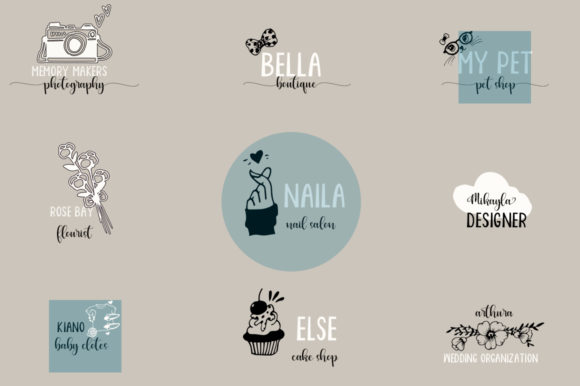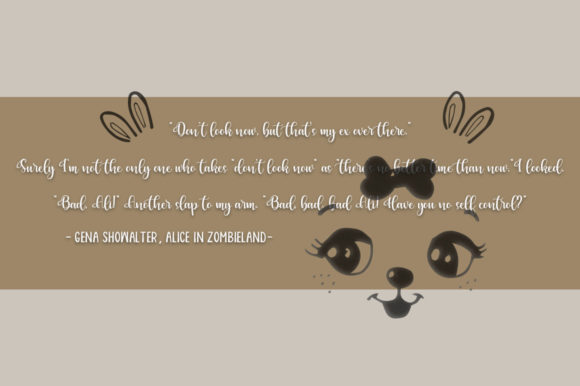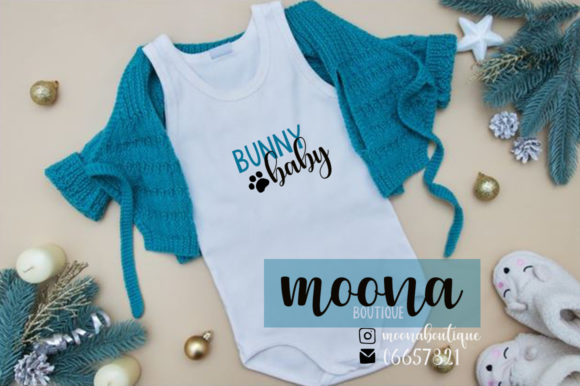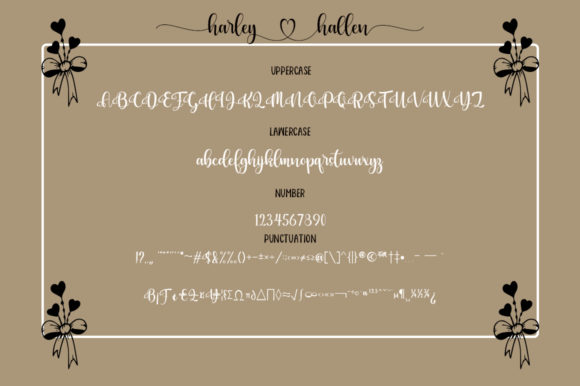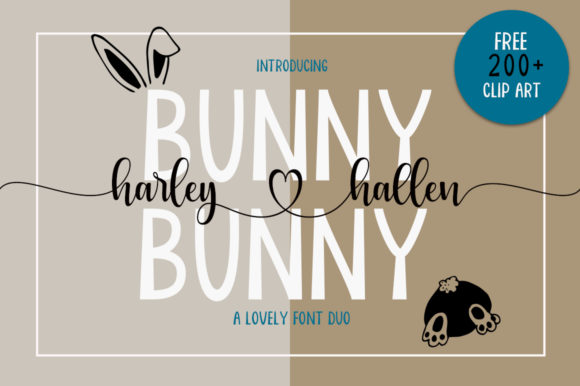
Bunny Harleyhellen Font: The Ultimate Duo for Stunning Designs
Are you a designer or crafter looking for a font that can elevate your designs to the next level? Look no further than the Bunny Harleyhellen Font, a lovely and delicate duo font that combines a sans serif and script style. This font is a masterpiece, with distinct and refined letters that will make your designs stand out.
The Versatility of Bunny Harleyhellen Font
One of the best things about the Bunny Harleyhellen Font is its incredibly versatile style. Whether you’re creating wedding invitations, thank you cards, quotes, greeting cards, logos, or business cards, this font will look stunning. Its adaptable and readable style makes it perfect for a wide range of designs, and its handwritten touch adds a personal and unique flair.
What Makes Bunny Harleyhellen Font Special?
So, what makes the Bunny Harleyhellen Font so special? For starters, it’s a duo font, which means it comes with two font styles: a sans serif and a script font. This allows you to mix and match the fonts to create a unique and visually appealing design. Additionally, the font is PUA encoded, which means you can access all of the glyphs and swashes with ease. This makes it easy to customize your designs and add your own personal touch.
If you’re a designer who specializes in wedding and event designs, you’ll love the Bunny Harleyhellen Font. Its elegant and refined style makes it perfect for wedding invitations, save the dates, and other event materials. The font’s handwritten touch adds a romantic and whimsical flair that’s sure to impress your clients.
Use Bunny Harleyhellen Font for a Wide Range of Designs
The Bunny Harleyhellen Font is not just limited to wedding and event designs. You can use it for a wide range of designs, including:
- Wedding invitations and save the dates
- Thank you cards and greeting cards
- Quotes and posters
Why Choose Bunny Harleyhellen Font?
So, why choose the Bunny Harleyhellen Font over other fonts? Here are just a few reasons:
- Unique and distinctive style
- Versatile and adaptable
- Handwritten touch adds a personal flair
- PUA encoded for easy customization
- Perfect for a wide range of designs
Tips for Using Bunny Harleyhellen Font
Here are a few tips for using the Bunny Harleyhellen Font:
- Use the sans serif font for headings and titles
- Use the script font for body text and descriptions
- Experiment with different font sizes and colors
- Use the glyphs and swashes to add a personal touch
In conclusion, the Bunny Harleyhellen Font is a must-have for designers and crafters who want to create stunning and unique designs. Its versatile style, handwritten touch, and PUA encoding make it perfect for a wide range of designs. Whether you’re creating wedding invitations, logos, or social media graphics, this font is sure to impress. So why wait? Download the Bunny Harleyhellen Font today and start creating your own spectacular designs!